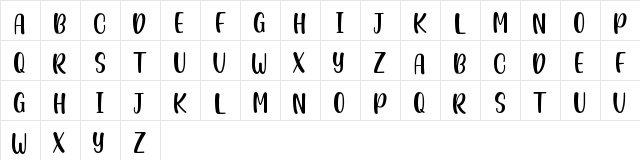
Casking Cream Sans Regular
Design Context for Casking Cream Sans Typeface
Casking Cream Sans is a composed and adaptable typeface that performs quietly and consistently across a wide range of design contexts.